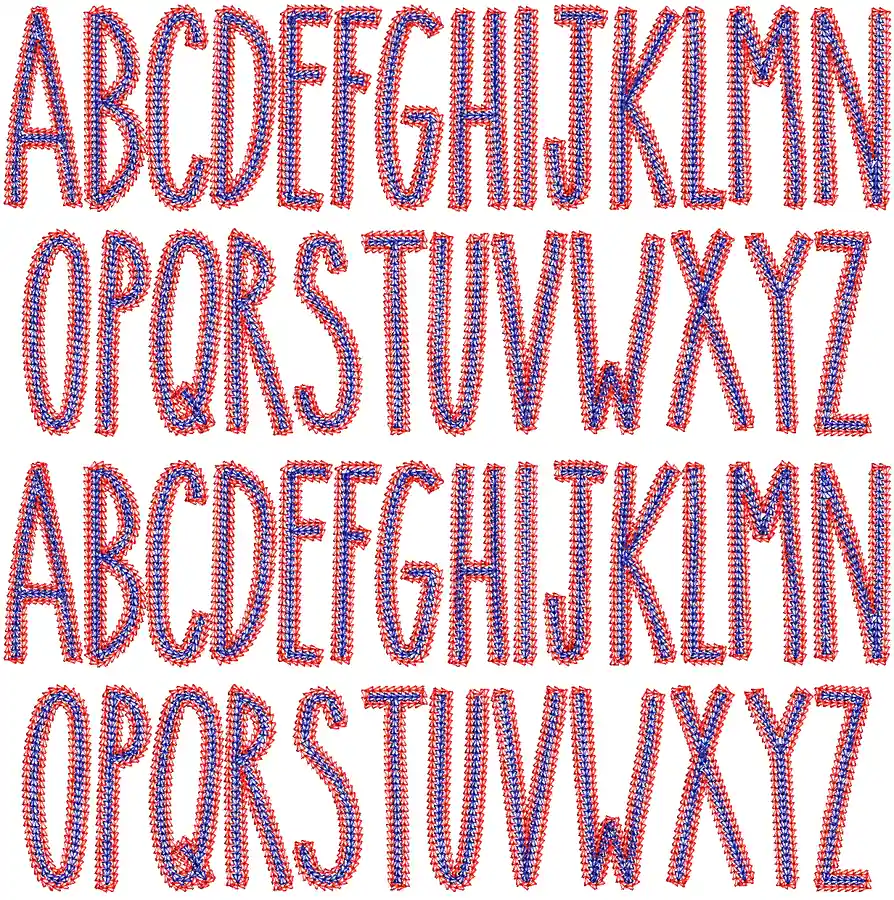
Eli Skinny Chain Stitch 2-color Font
Born from a deep love for vintage textile artistry and understated modern typography, the Eli Skinny Chain Stitch font captures the nostalgic allure of old-school hand-cranked chain stitch work while presenting an ultra-chic, slender silhouette. Designed with a delicate dual-tone interplay, this alphabet breathes artisanal warmth and tactile dimension into fine fabrics. Each letterform flows with an airy grace, allowing contrasting or tone-on-tone threads to weave a sophisticated narrative across bespoke garments and cherished heirloom projects.
Digitized with meticulous precision to maintain clean loop tension across various scales, the Eli Skinny Chain Stitch collection includes:
- Three Proportionate Letter Heights: 1-inch, 2-inch, and 3-inch sizes (measured by capital height).
- Alphabet Set: 26 full uppercase letters designed specifically for two-color stitch sequencing.
Project Ideas for Eli Skinny Chain Stitch
With its slender, artisanal line weight and expressive dual-thread aesthetic, this font adapts effortlessly to both modern minimalism and vintage revival styles:
- Luxury Table Linens & Cocktail Napkins: Embroider crisp, single-initial monograms in complementary neutral tones on natural flax linen for an elevated dining experience.
- Bespoke Resort Wear & Shirting: Add personalized dual-color initials to the chest pockets of relaxed linen button-downs, resort cover-ups, or sun hats.
- Custom Denim & Heritage Jackets: Recreate the coveted look of vintage clubhouse and chain-stitched souvenir jackets across denim collars, pockets, or yokes.
- Heirloom Nursery Blankets & Layettes: Stitch delicate, non-bulky names onto soft waffle-knit baby blankets or pima cotton rompers.
- Bridal Party Keepsakes: Personalize silk pajama cuffs, weekend canvas totes, and cotton cosmetic pouches for thoughtful, boutique-quality gifting.
The lithe proportions of Eli make it extraordinarily versatile across curved hems, narrow bands, and prominent open surfaces:
- Corner Diagonal: Angle 1-inch or 2-inch monograms 1.5 to 2 inches from the corner hemline on dinner napkins and pocket squares for classic European styling.
- Left Chest & Pocket Headers: Position the 1-inch size directly above or centered on shirt pockets, ensuring the skinny strokes do not overwhelm lightweight apparel fabrics.
- Sleeve Cuffs & Collars: Utilize the 1-inch scale parallel to the cuff edge for an intimate, bespoke sartorial signature.
- Center Front & Back Yokes: Showcase the 2-inch or 3-inch scales across the center of tote bags, decorative throw pillows, or denim outerwear where the two-color texture can truly take center stage.
Eli Skinny Chain Stitch Craft & Letterform Details
Digitizing a narrow, open-structure chain stitch requires a master's restraint. Rather than packing heavy density onto delicate fibers, the Eli letterforms are mapped with an organic loop-and-lock rhythm that mimics authentic hand-guided chain stitching. The two-color format separates the foundational stems and decorative chain loops into cleanly choreographed color stops, letting you pair bold contrasting tones or subtle sister shades for rich visual depth. Every stroke is balanced to resist fabric pulling while maintaining needle precision, resulting in a featherlight, flexible drape that moves naturally with your finest textiles.